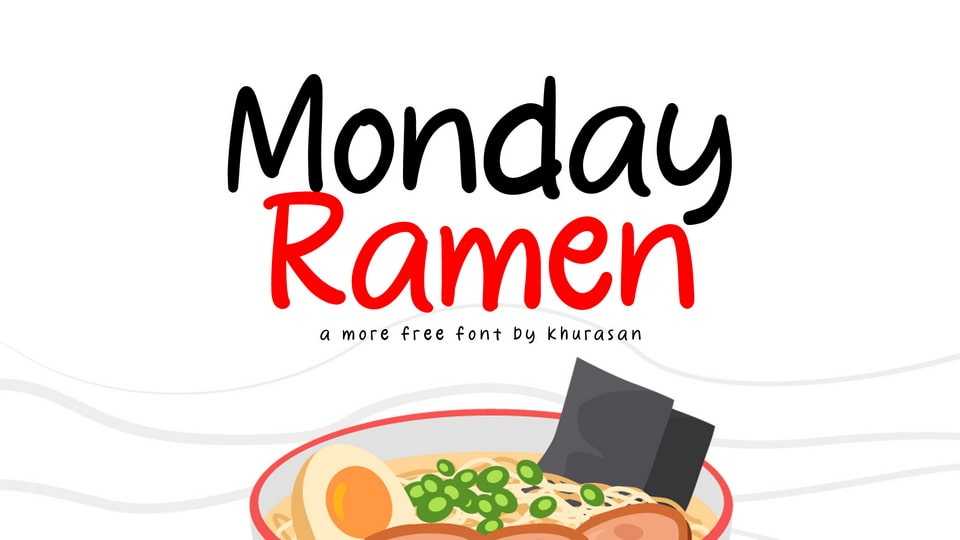
Download Monday Ramen font, a simple handwritten typeface that captures the essence of childhood doodles and playful creativity. Each character is thoughtfully designed with a hand-drawn quality that exudes an air of innocence and spontaneity.